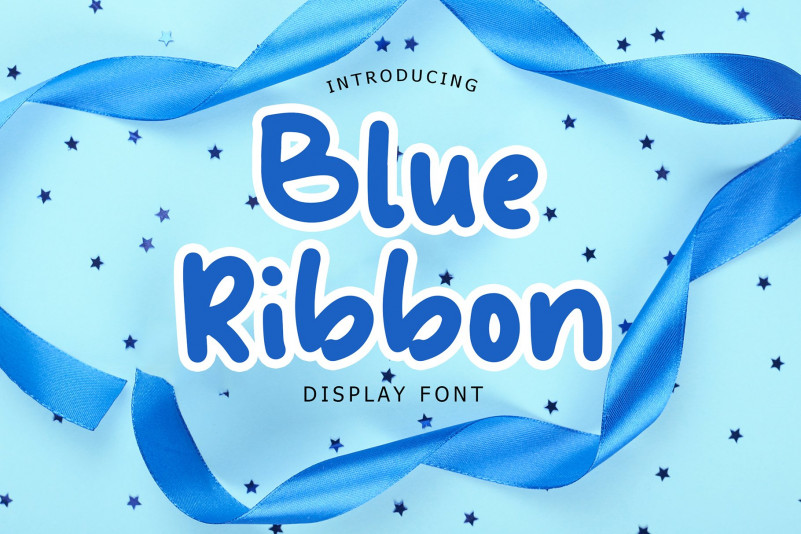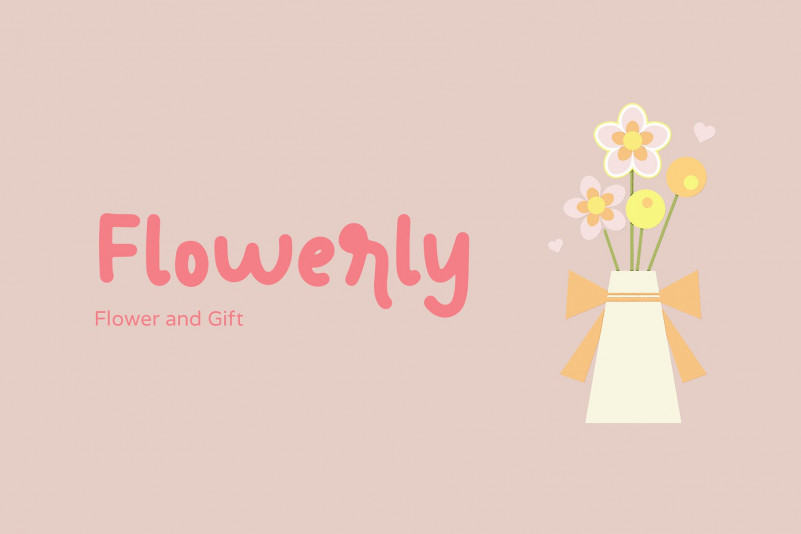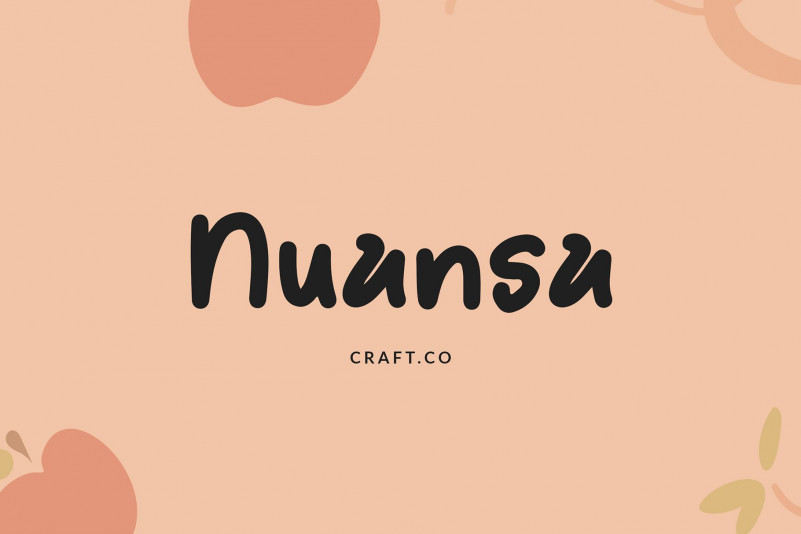
Blue Ribbon Font
Blue Ribbon Fun Display Font is a playful font cheer up your design theme, can make your text appear excited and modern!
Blue Ribbon is perfect for branding projects, logo, kids designs, youtube channel, social media posts, advertisements, product packaging, T-shirt design, product designs, label, photography, watermark, invitation, stationery, and any projects.